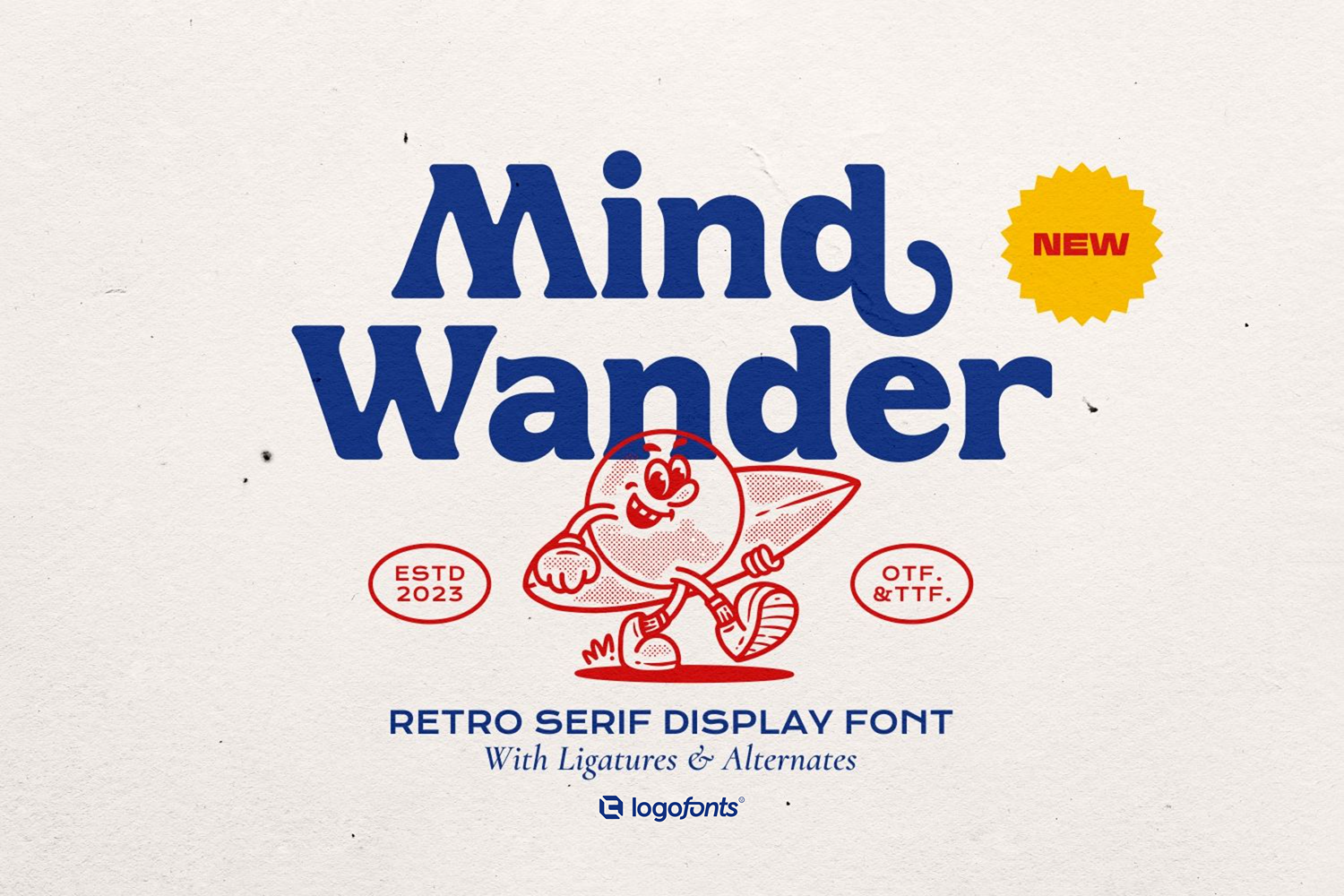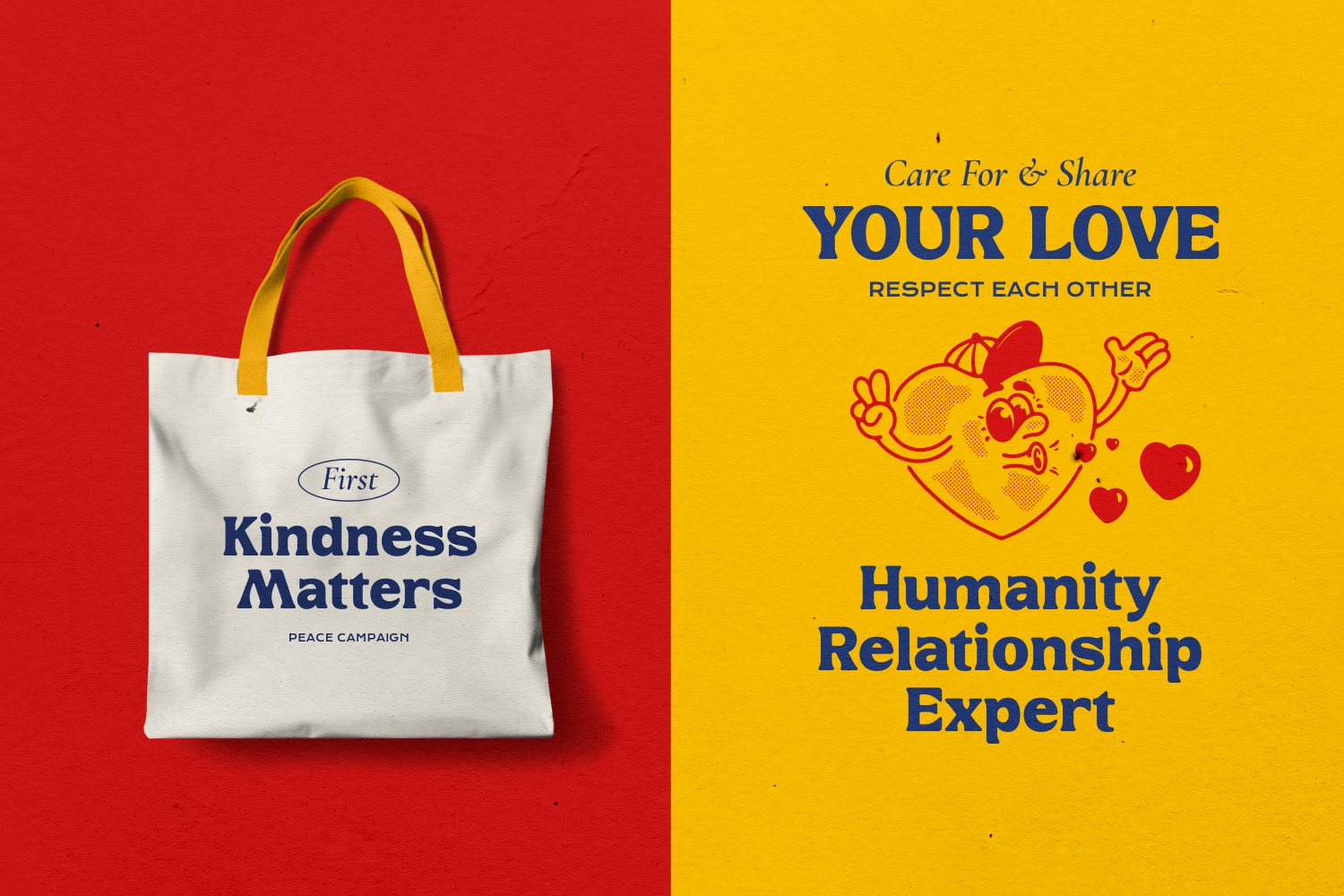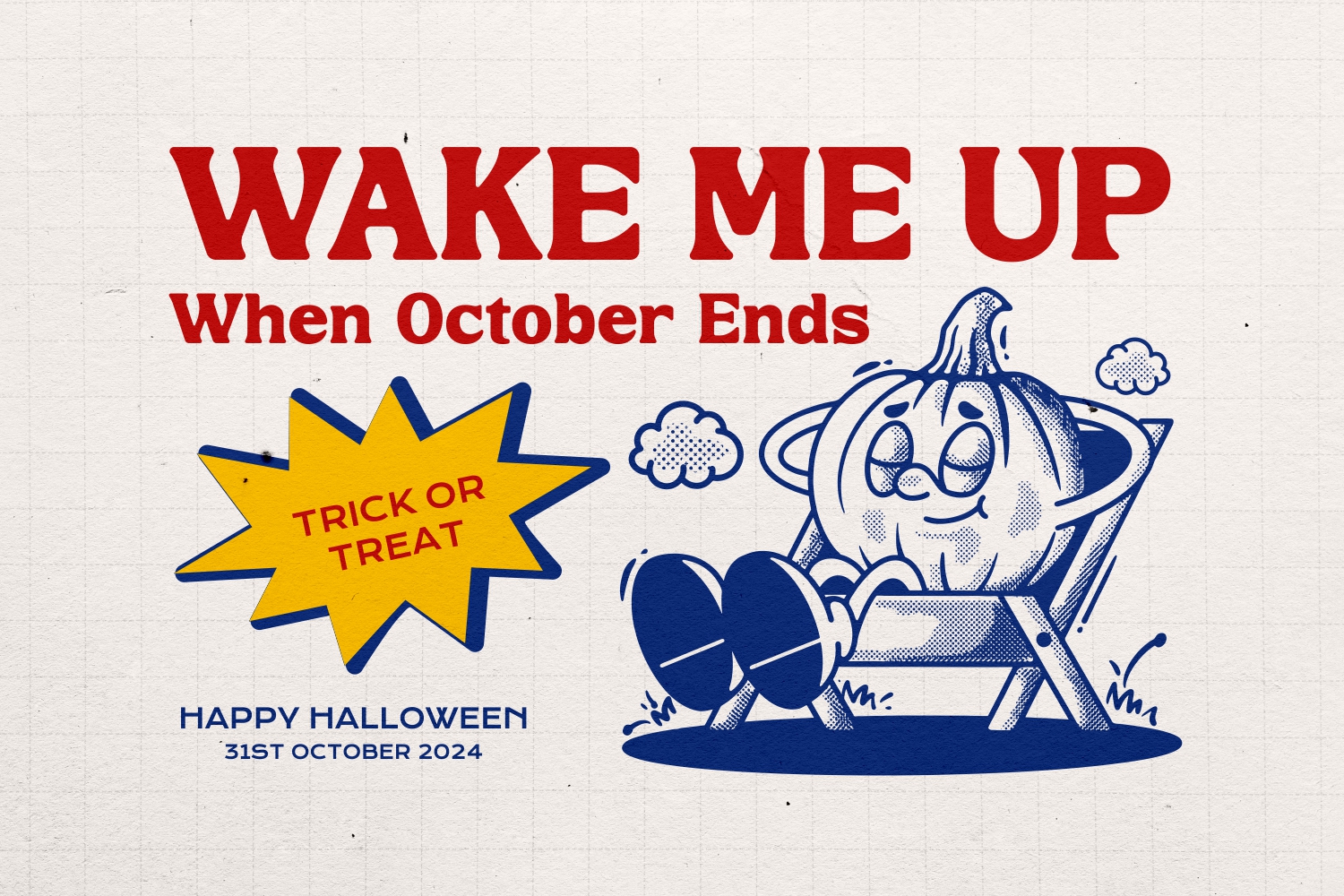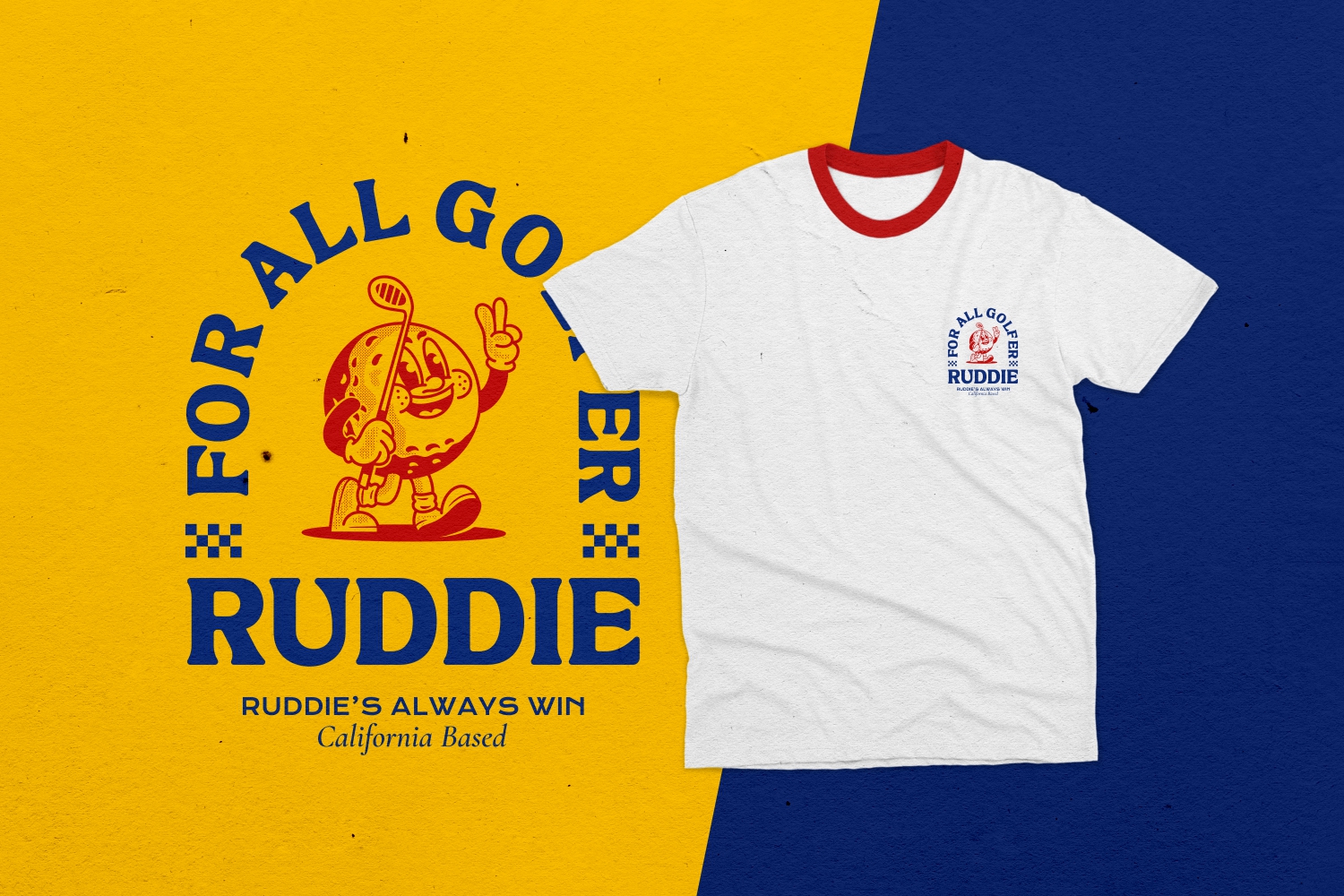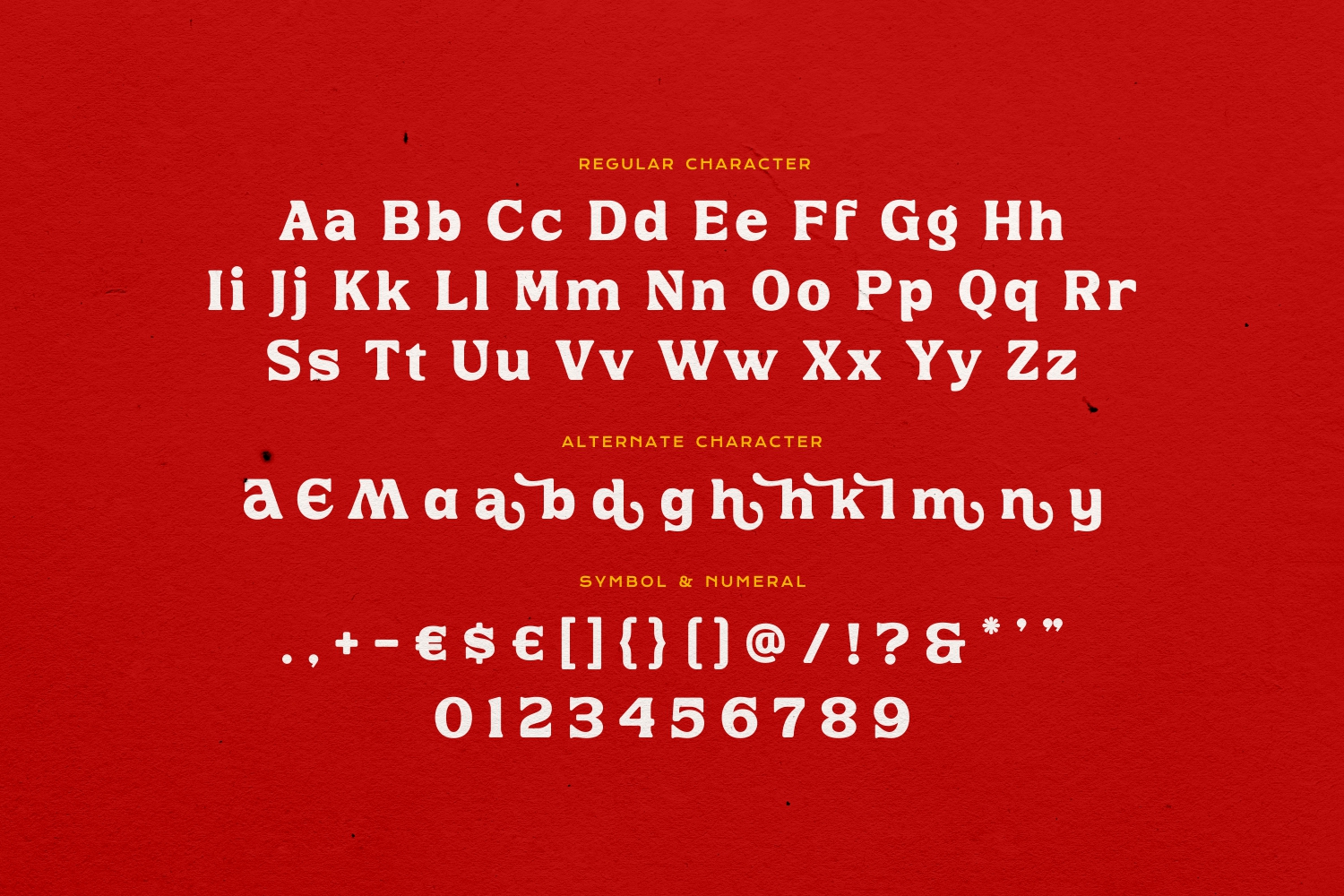
Mind Wander is a retro serif display font that blends playful character with vintage charm. Featuring rounded serifs, bold strokes, and whimsical ligatures, this typeface delivers a warm, nostalgic feel while maintaining clear legibility. With a complete set of alternates, it’s perfect for designers who want to add a handcrafted touch to headlines, branding, and editorial layouts.
Whether used on posters, apparel, or campaign materials, Mind Wander excels in evoking emotion and character. Its versatility and fun, expressive forms make it ideal for projects rooted in storytelling, positivity, and expressive brand identities.
Mind Wander